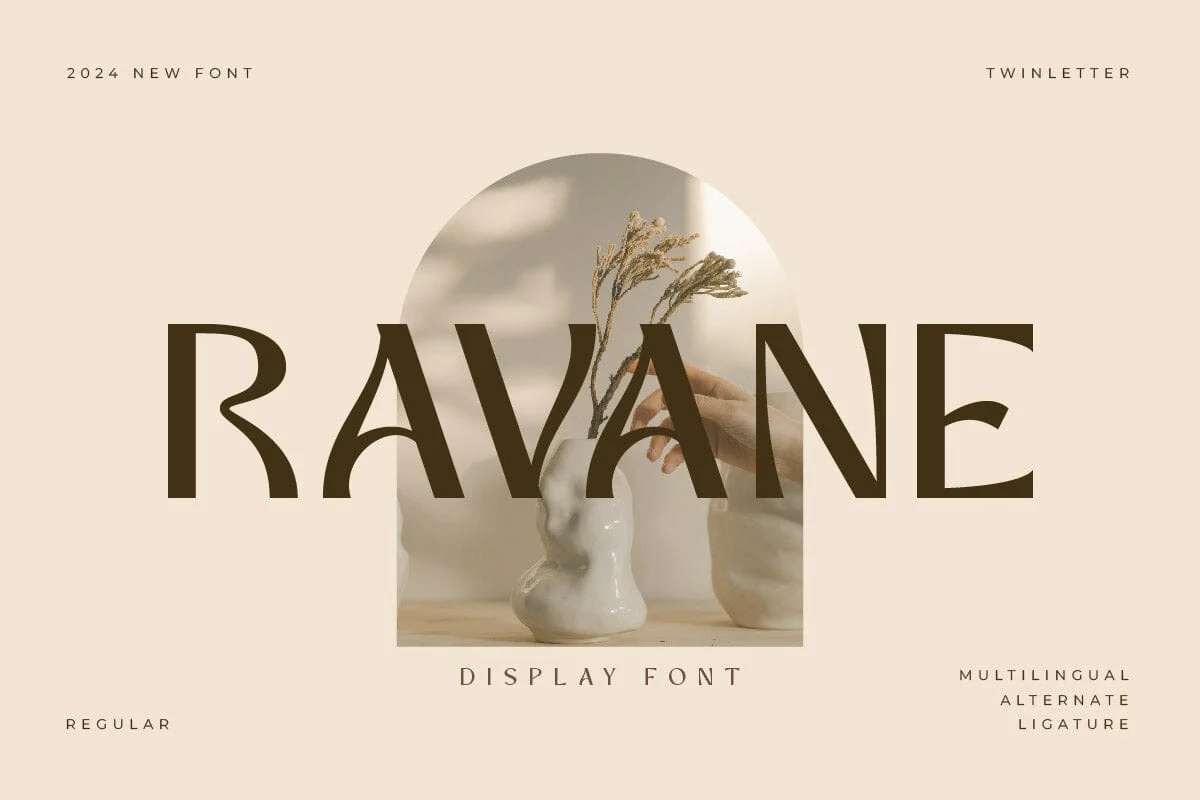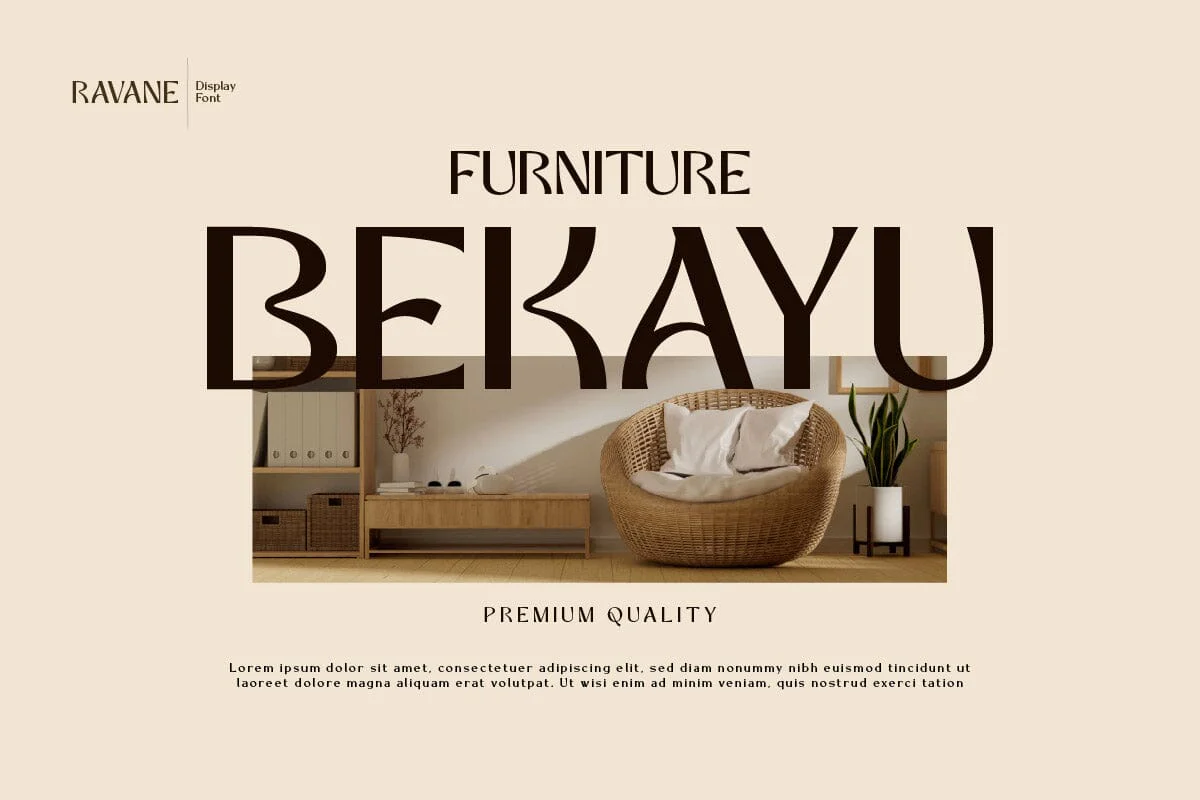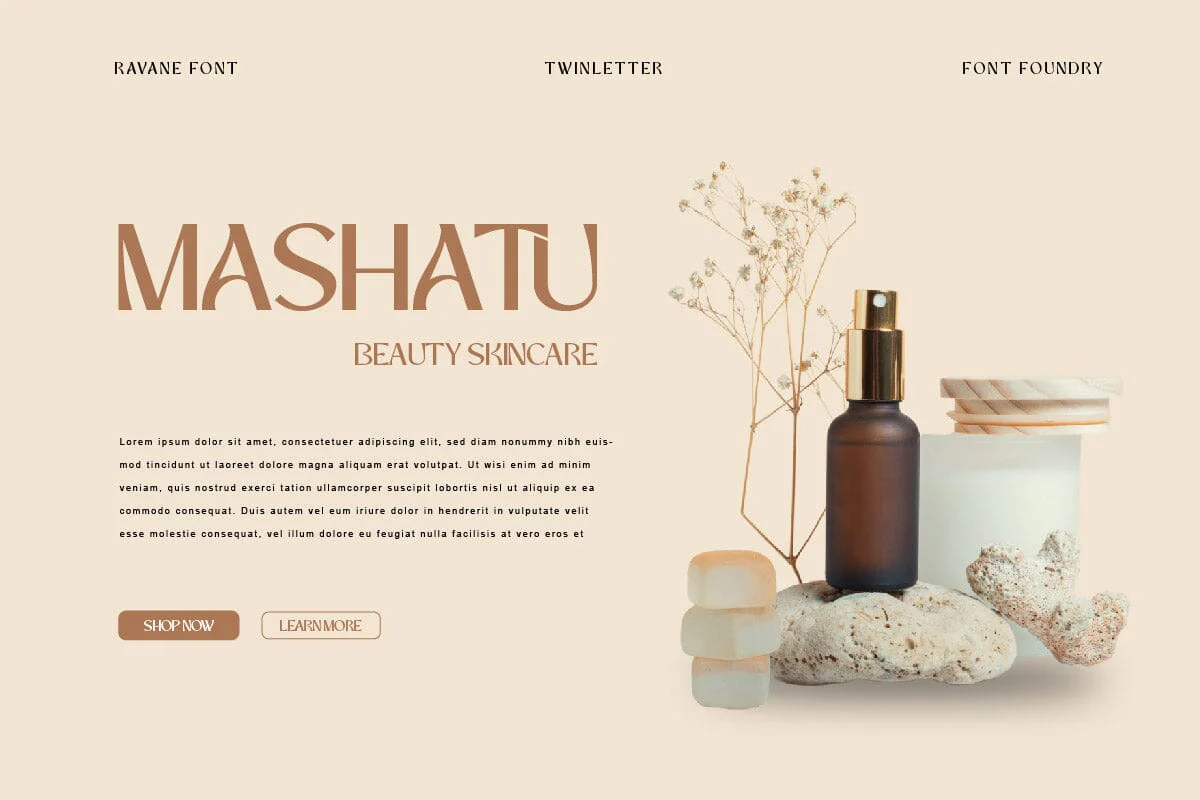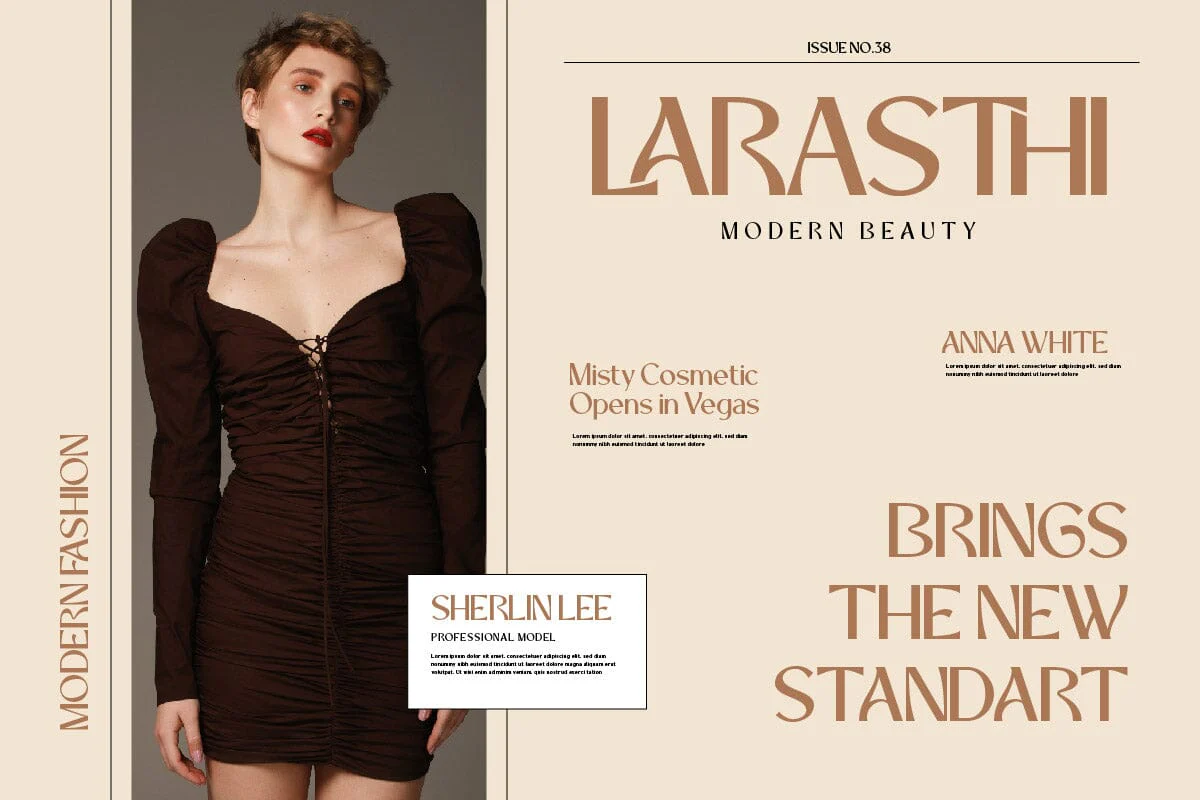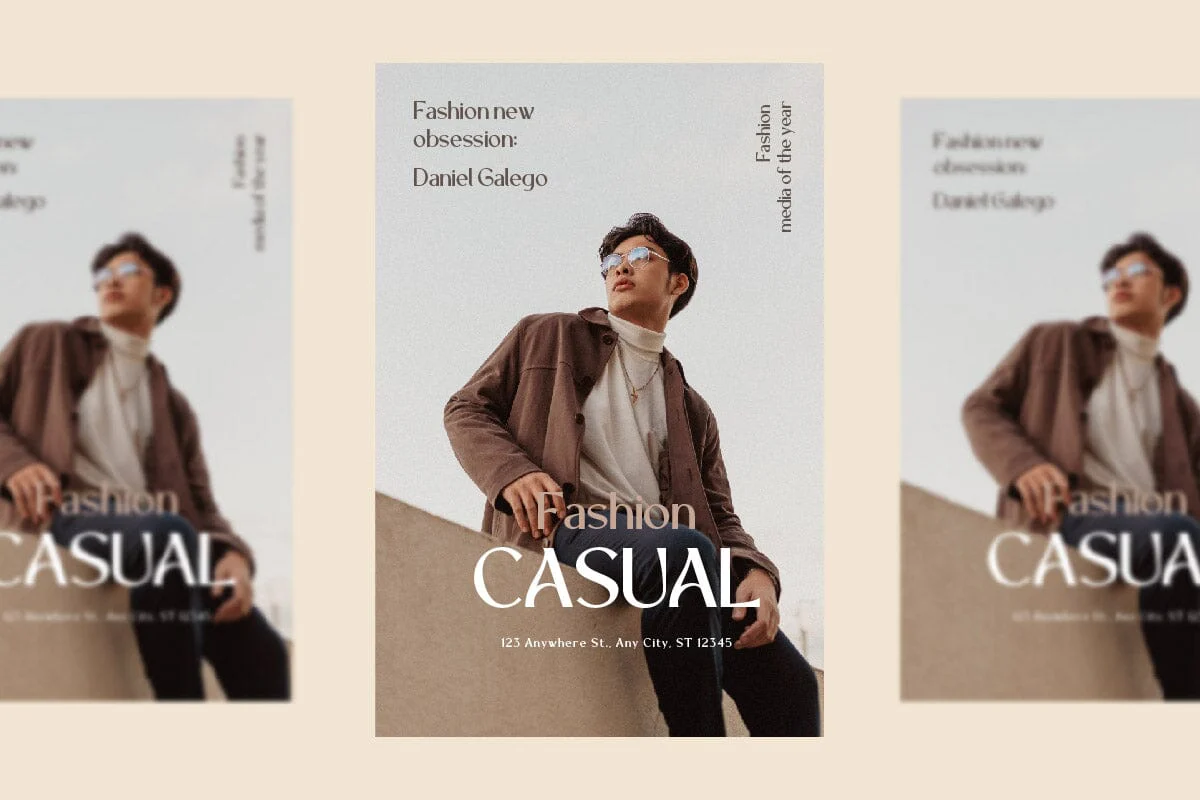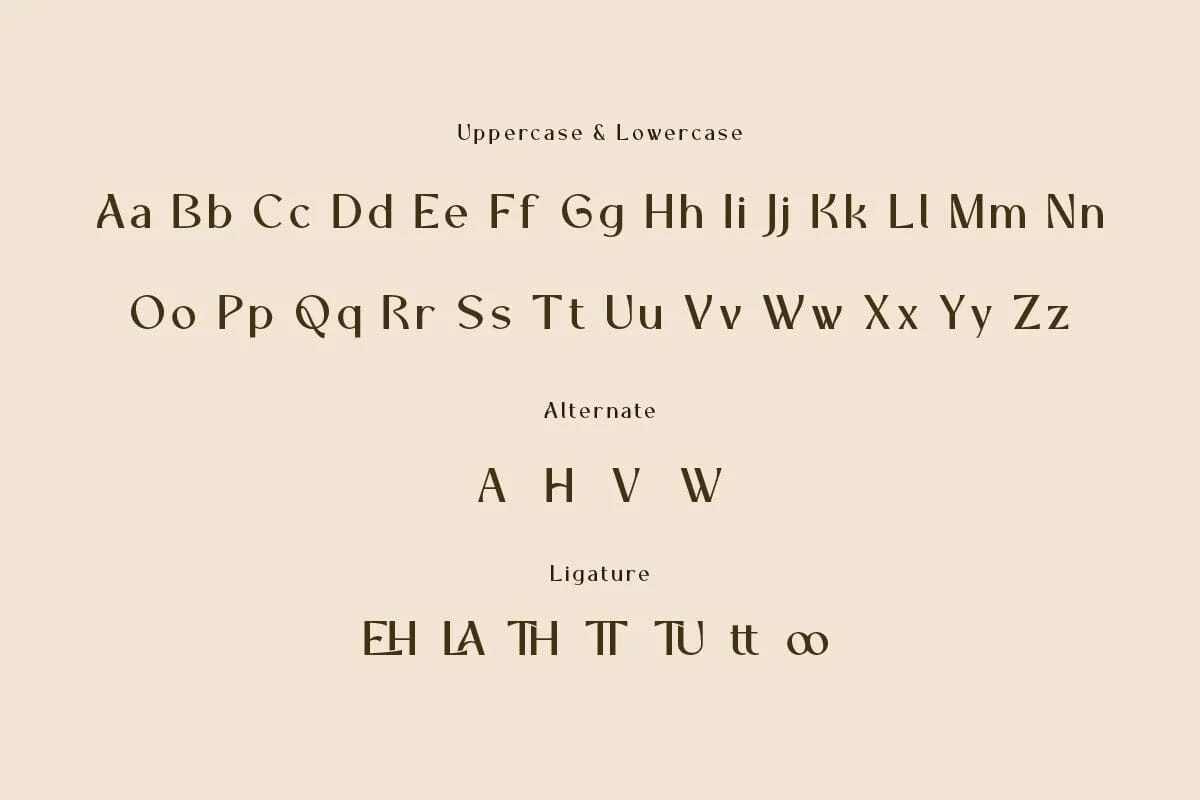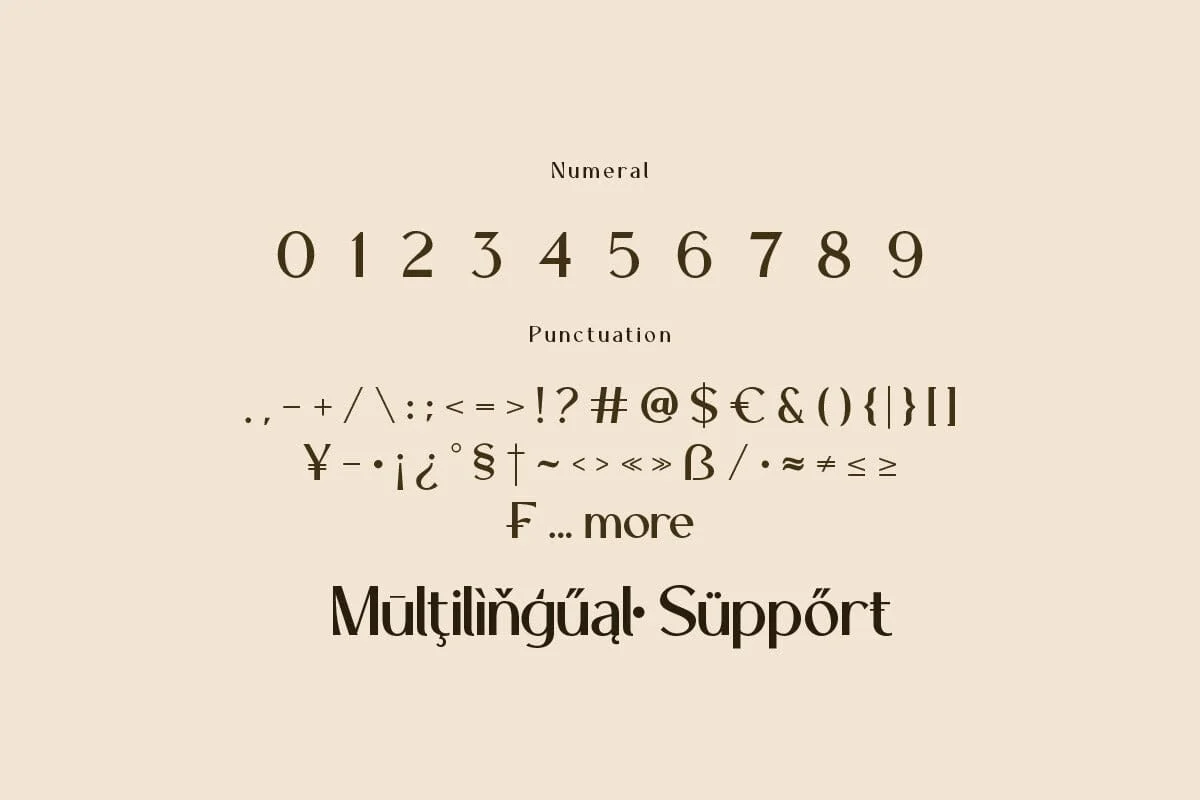
Ravane - Display Font
Discover Ravane, a display font that captures the essence of bold creativity and modern design. Perfectly suited for projects that need a striking and dynamic touch, Ravane stands out with its unique character and flair. This font is your ultimate choice for branding, headlines, posters, and social media graphics. The bold lines and distinctive shapes make Ravane an indispensable tool for designers who want their work to leave a lasting impression. With Ravane, every project becomes an opportunity to showcase your innovative spirit. Dive into the world of Ravane and transform your creative visions into reality.